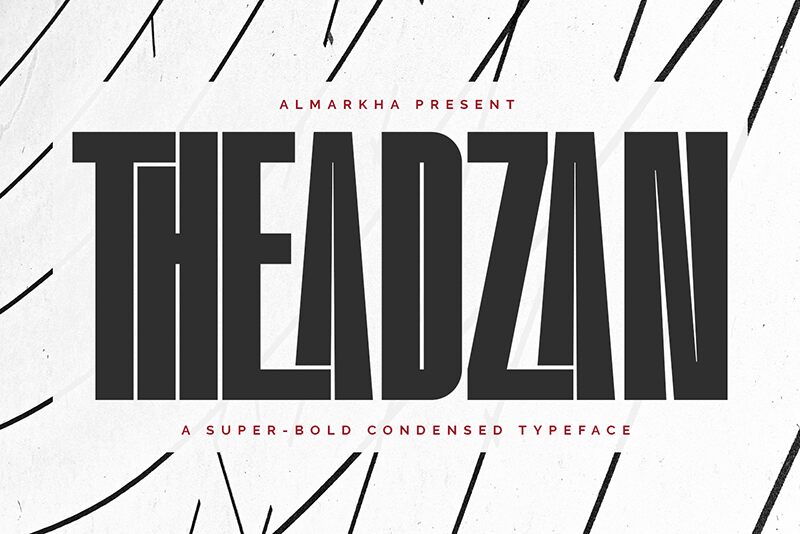
Theadzan
Theadzan, crafted by Almarkhatype, stands out with its sleek sans serif contours and a distinctively condensed silhouette that captures attention. Its bold strokes exude confidence, making it an ideal choice for headlines where impact is paramount. This font's streamlined form pairs modernity with space-saving efficiency, offering a stylish aesthetic that doesn't sacrifice readability.
Perfect for branding projects, editorial work, and advertising campaigns that demand a touch of sophistication without the clutter, Theadzan promises to elevate any design with its striking presence. Whether it's gracing the pages of a magazine or anchoring a dynamic logo, this font's versatility allows it to adapt seamlessly across various creative landscapes.